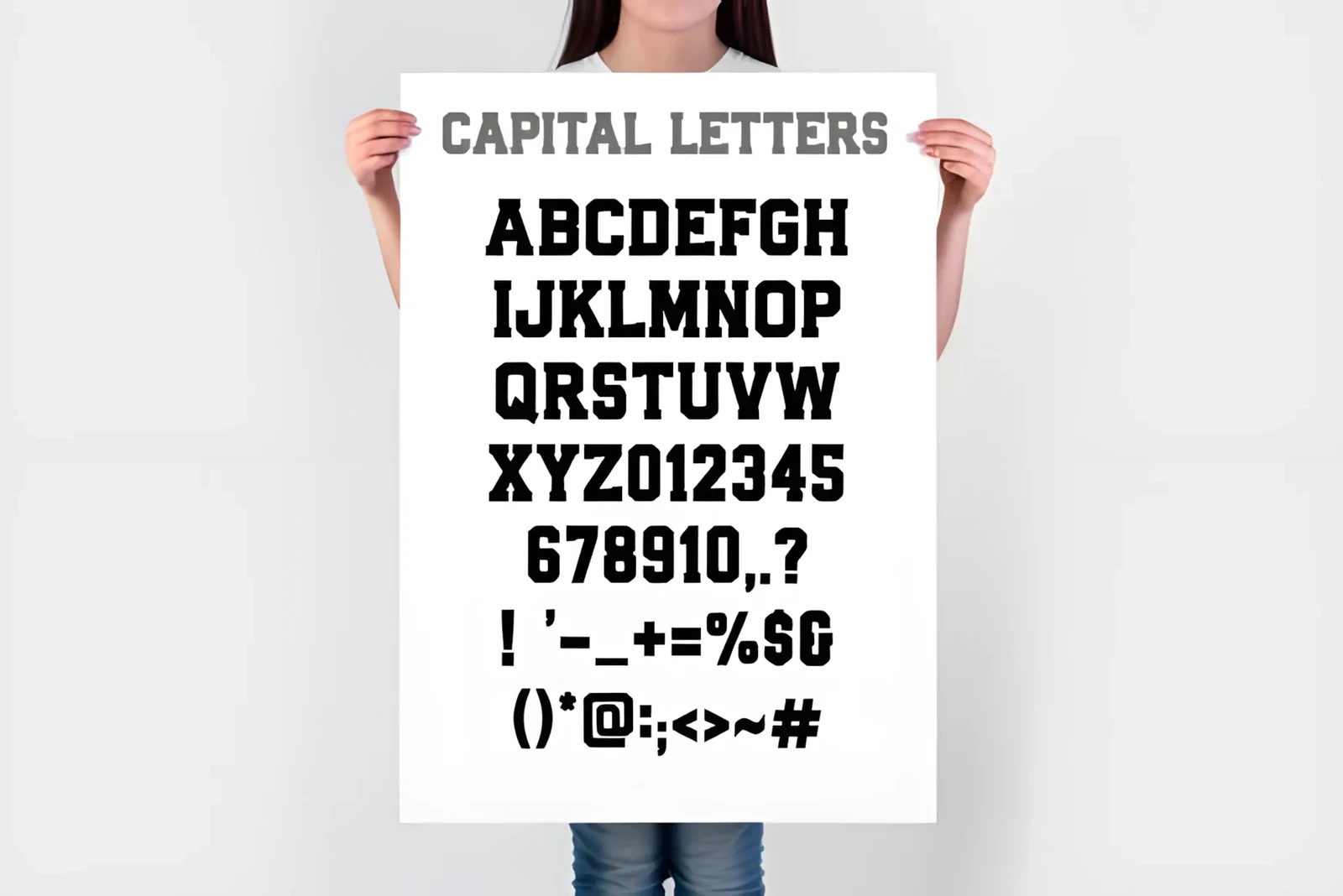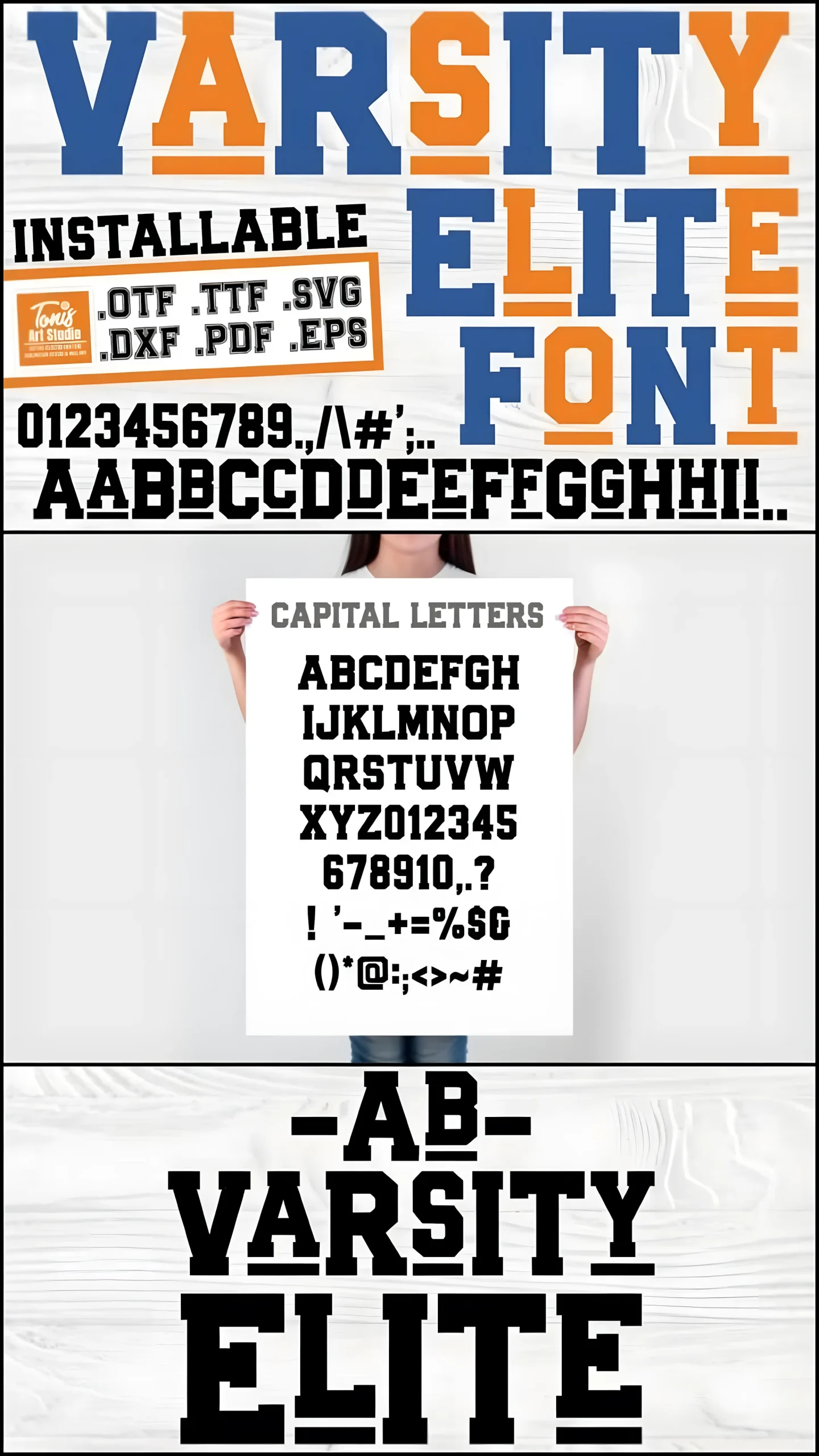
When design calls for confidence and energy — whether you’re working on team branding, event graphics, or spirited merchandise — the right typeface doesn’t just communicate text… it communicates attitude. That’s where Varsity Elite Font steps in: a bold, athletic decorative typeface that instantly brings visual strength and personality to a wide range of creative projects.
Varsity Elite isn’t a background player. This is a font built to stand up front, carry emotion, and help visuals feel competitive, spirited, and unmistakably confident — whether in print or on screen.
What Makes Varsity Elite Stand Out
Think about classic varsity jerseys, stadium banners, school spirit posters, or sports championships. What’s common across all of them? Strong, bold lettering that feels almost tactile — something that designers today want to recreate in branding, apparel, signage, and promotional design.
Varsity Elite Font takes that same visceral impact and gives it a modern twist. Its letterforms are:
- Strong and block-style, reflecting athletic tradition
- Highly readable at large sizes, ideal for headlines
- Visual without being overwhelming, even in busy layouts
- Character-rich, adding personality without extra graphics
Where some fonts need support from images or logos, Varsity Elite carries its own visual weight. That’s why you’ll see it work so naturally in environments where spirit and identity matter.
When Varsity Elite Font Feels Just Right
School and Team Branding
Imagine a high school team reveal, a college athletic department page, or branded letterheads for your local league. Varsity Elite Font immediately reads like “team identity.” It’s the kind of typeface that feels like part of the team — not something tacked on.
It communicates:
- Energy
- Unity
- Strength
- Group identity
Even in small doses, this typeface can shift the tone of a design from bland to bold.
Posters and Event Materials That Grab the Eye
If you’ve ever walked past a poster for a big game or championship event, you know that typography often plays the biggest role in grabbing your attention first. Varsity Elite’s heavy strokes and clean contours make it ideal for:
- Game day posters
- Tournament flyers
- Pep rally promotions
- Community sports events
It doesn’t compete with photos — it enhances them. Where many fonts fade into the background, Varsity Elite anchors the visual narrative.
Merch That People Actually Wear
Team merchandise is more than just swag — it’s a badge of pride. Varsity Elite Font works beautifully on:
- T-shirts and hoodies
- Baseball caps and beanies
- Team gear and accessories
- Fan banners and decals
Its strong visual presence makes words feel like emblems, which is especially powerful when the font appears on branded apparel or fan gear.
Digital Presence That Demands Attention
In social feeds and digital platforms, attention spans are short and visuals need to be strong right at first glance. Varsity Elite holds its own across:
- Website headers
- Instagram and TikTok graphics
- Digital ads and event landing pages
- Email banners
This typeface ensures that key messages are readable and memorable — even on smaller screens where clarity matters.
Why Designers Keep Choosing Varsity Elite
It’s tempting to reach for safe, neutral fonts that blend into a layout — but sometimes the project demands something with bold identity. What sets Varsity Elite apart is that it doesn’t just tell a message… it sells it.
Compared to ordinary sans or serif fonts, this typeface:
- Has instant visual impact without heavy styling
- Works great alongside images, textures, and layer effects
- Scales well from print posters to tiny digital headers
- Adds personality without looking cliché
This makes it a go-to choice for designers, brands, educators, and sports programs alike.
If your next project calls for a typeface with spirit, confidence, and visual authority, Varsity Elite delivers it with style.
Varsity Elite Font isn’t just another decorative typeface. It’s a statement — one that says team, spirit, confidence, and identity. Whether you’re designing for athletics, school events, digital campaigns, or everyday branding that needs a bold voice, this font brings energy and character in a way few others do.
It’s not just typography — it’s attitude on the page.